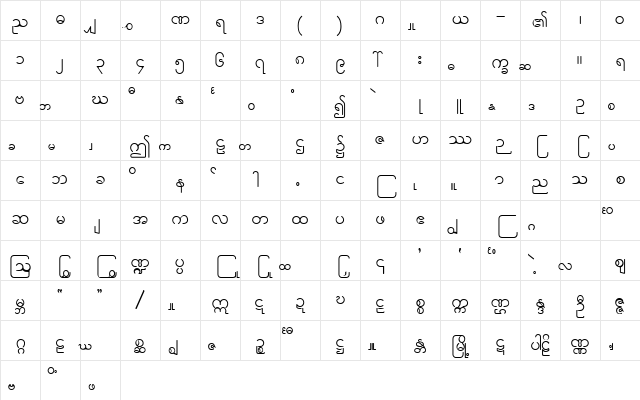
CENORMAL Normal
Style: Normal
Design Context for CENORMAL
CENORMAL is a composed and adaptable typeface that performs quietly and consistently across a wide range of design contexts.